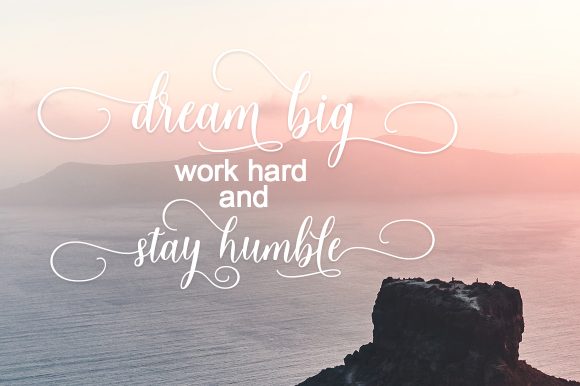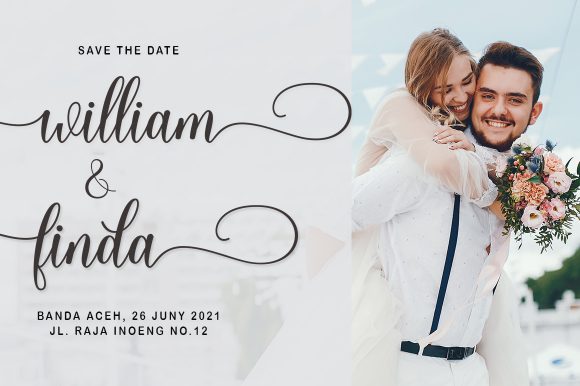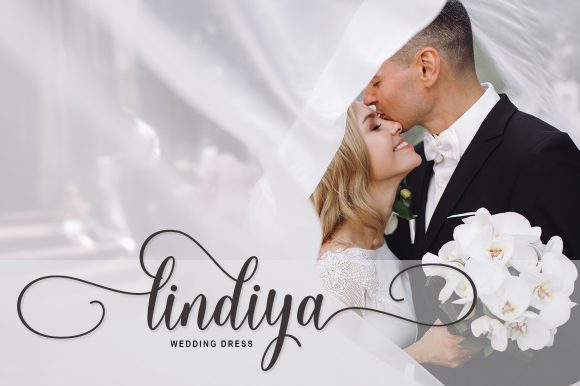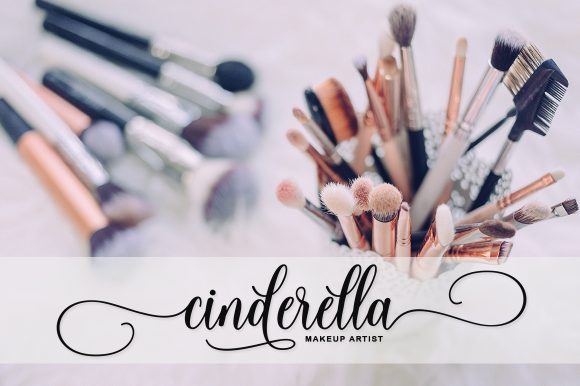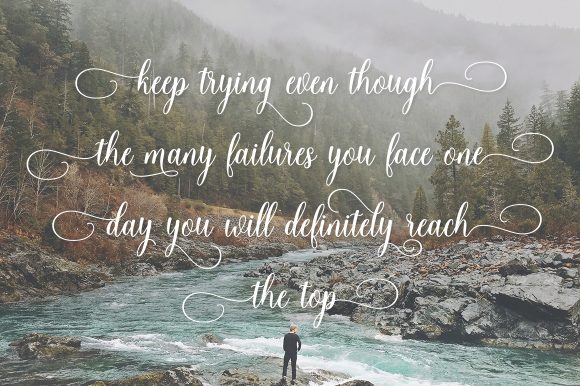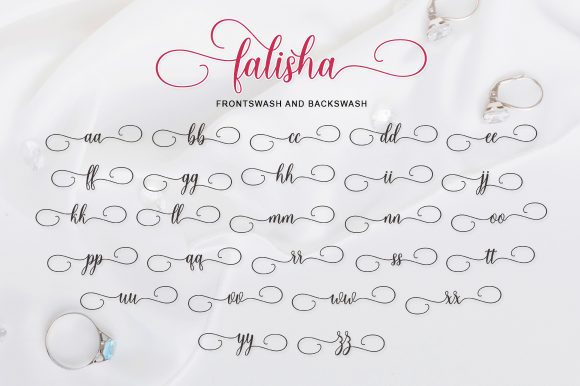
Introducing Falisha Font: Elevate Your Designs with Luxury and Elegance
Are you tired of using the same old fonts for your design projects? Look no further! Falisha Font is here to revolutionize the way you approach typography. This beautiful light handwritten font boasts a unique feel and a stunning impact that will instantly add a touch of luxury to any design project you wish to create.
What Makes Falisha Font So Special?
Falisha Font is not just another font; it’s an experience. Its light handwritten style exudes elegance and sophistication, making it perfect for designers and crafters who want to create something truly special. Whether you’re working on a branding project, a wedding invitation, or a packaging design, Falisha Font is sure to make your work stand out.
The Power of PUA Encoding
One of the most significant advantages of Falisha Font is that it’s PUA (Private Use Area) encoded. But what does that mean exactly? PUA encoding allows you to access all glyphs and swashes with ease, giving you complete creative control over your typography. With Falisha Font, you can effortlessly navigate through a vast range of characters, ligatures, and swashes to create unique and breathtaking designs.
With Falisha Font, the design possibilities are endless. You can use it to create:
• Stunning Logos: Add a touch of luxury to your brand’s logo and make it instantly recognizable.
• Breathtaking Invitations: Create beautiful wedding invitations, birthday cards, or any other type of invitation that will leave a lasting impression.
• Elegant Packaging: Elevate your packaging design with Falisha Font and make your product stand out on store shelves.
• Mesmerizing Posters: Design eye-catching posters that will grab attention and leave a lasting impact.
Why Choose Falisha Font?
With so many fonts available, why choose Falisha Font? Here are just a few reasons:
• Unique Style: Falisha Font has a one-of-a-kind style that will set your designs apart from the rest.
• Ease of Use: Thanks to PUA encoding, you can easily access all glyphs and swashes, making it simple to create stunning designs.
• High-Quality: Falisha Font is crafted with precision and attention to detail, ensuring that it looks great in any design project.
Tips for Using Falisha Font
To get the most out of Falisha Font, here are a few tips:
• Experiment with Swashes: Don’t be afraid to try out different swashes and glyphs to add a personal touch to your designs.
• Mix and Match: Combine Falisha Font with other fonts to create a unique and visually appealing design.
• Pay Attention to Spacing: Make sure to adjust the spacing between letters to create a clean and elegant look.
Falisha Font is a game-changer for designers and crafters who want to add a touch of luxury to their design projects. With its unique feel, stunning impact, and PUA encoding, this beautiful light handwritten font is sure to elevate your designs to the next level. So why wait? Get your hands on Falisha Font today and start creating breathtaking designs that will leave a lasting impression!